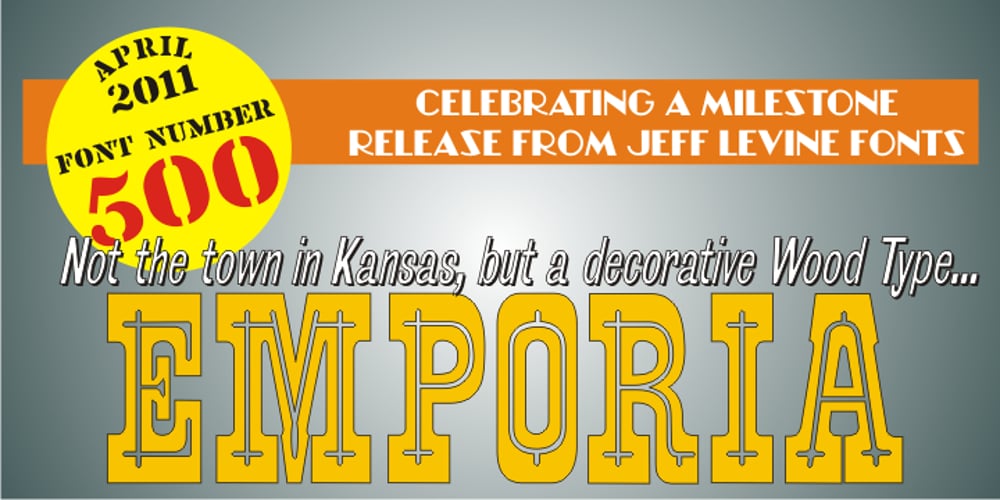
Emporia JNL
Emporia JNL font
Emporia JNL Font Family was designed by Jeff Levine and published by Jeff Levine. Emporia JNL contains 1 styles and family package options. Emporia JNL is a wonderfully decorative and vintage wood type named for a city in Kansas, and modeled from just a dozen images of individual type blocks spotted for auction online. The release of this typeface is also a milestone for Jeff Levine Fonts. The foundry started in January, 2006 with only ten releases, and has now grown to be an impressive library of unique lettering designs from the past. The collection also contains numerous original and novelty creations. Emporia JNL is proudly released as the 500th font design to join this extensive library.